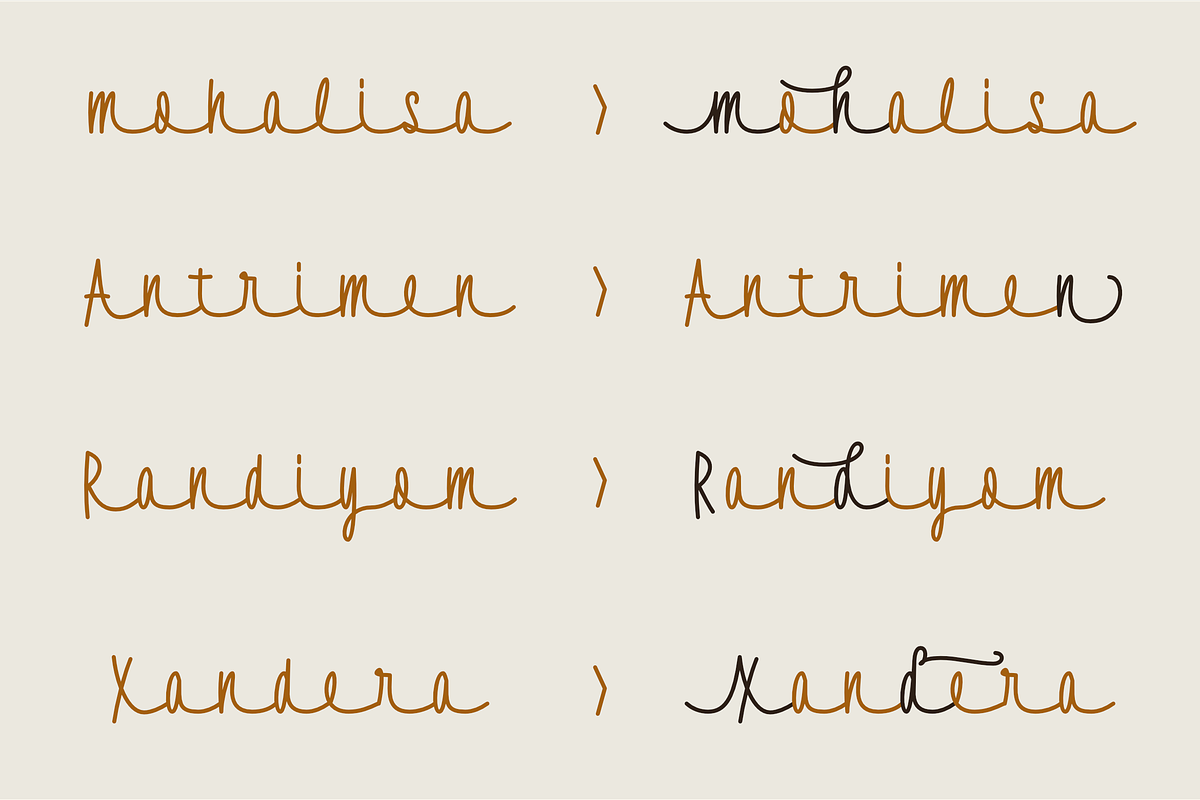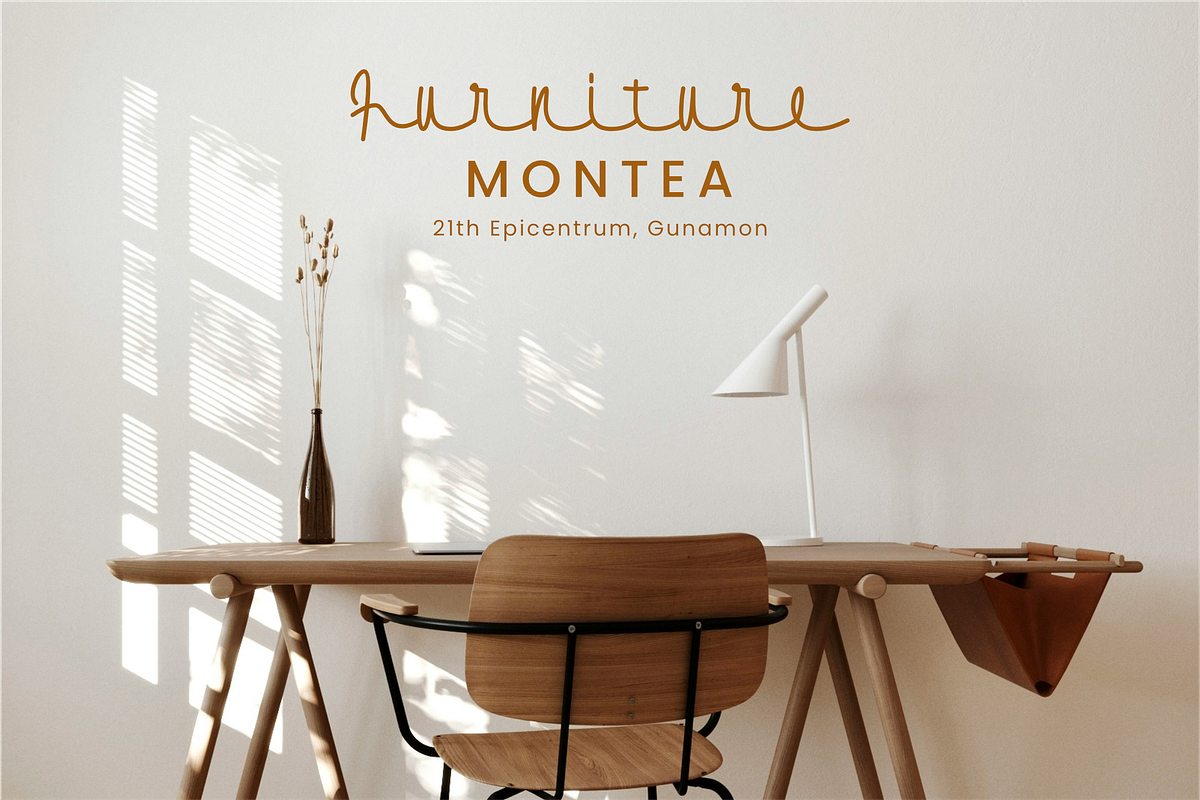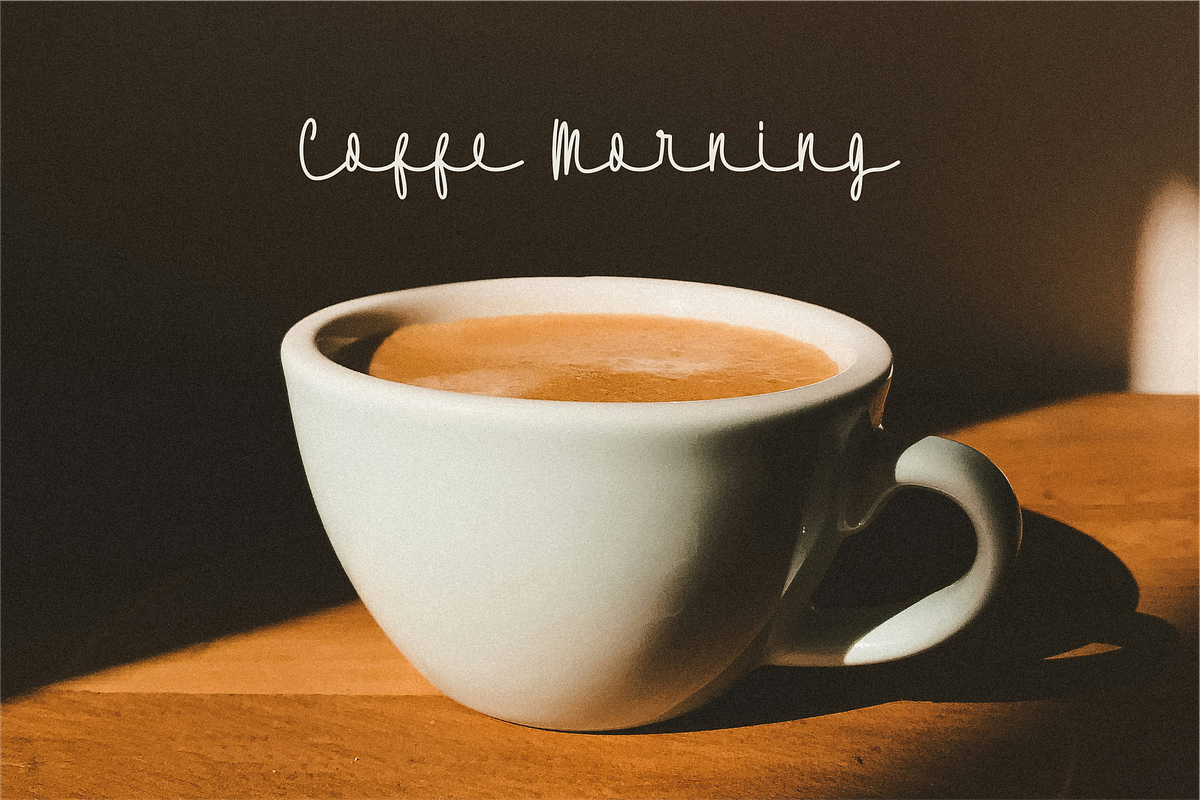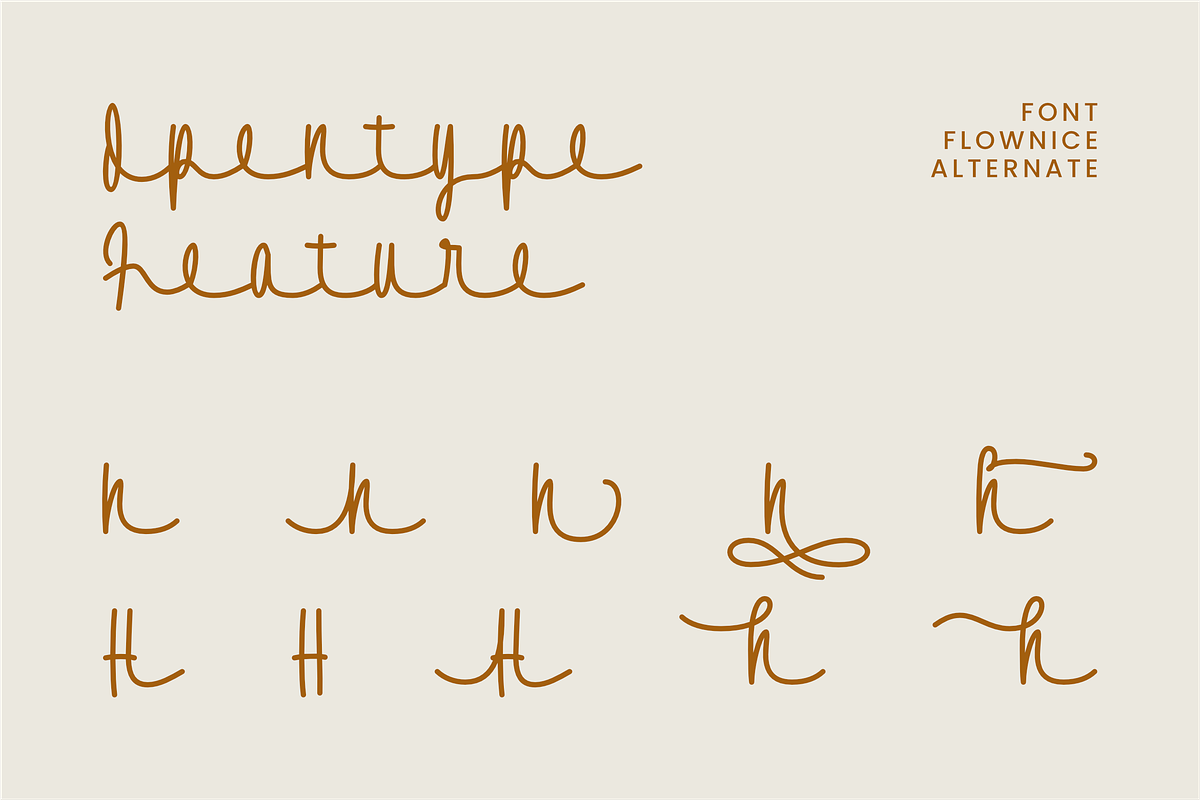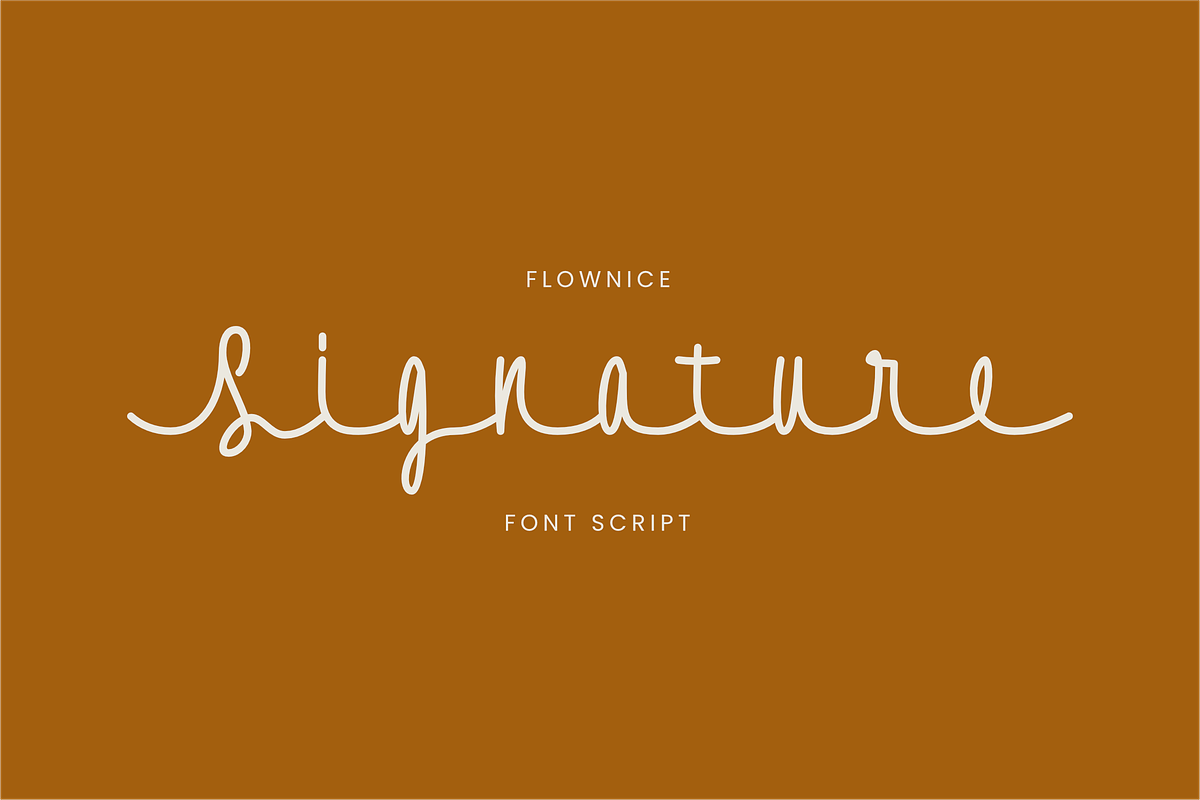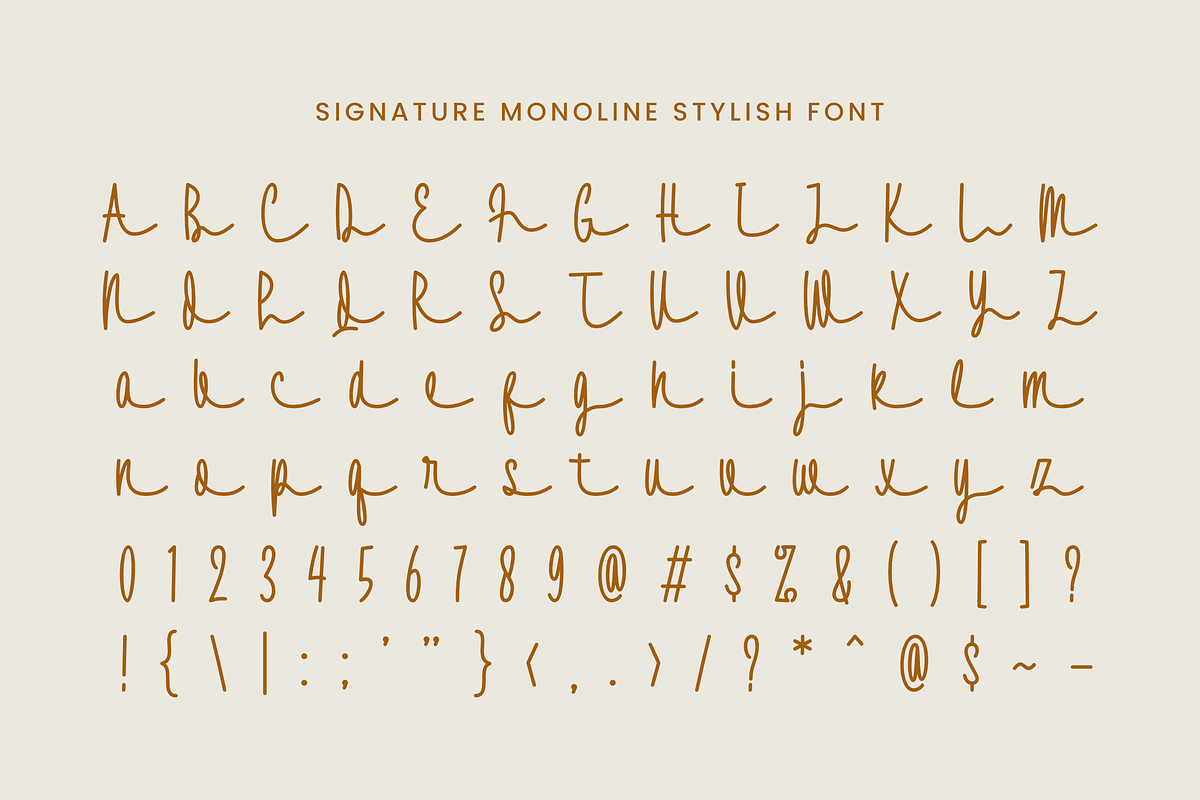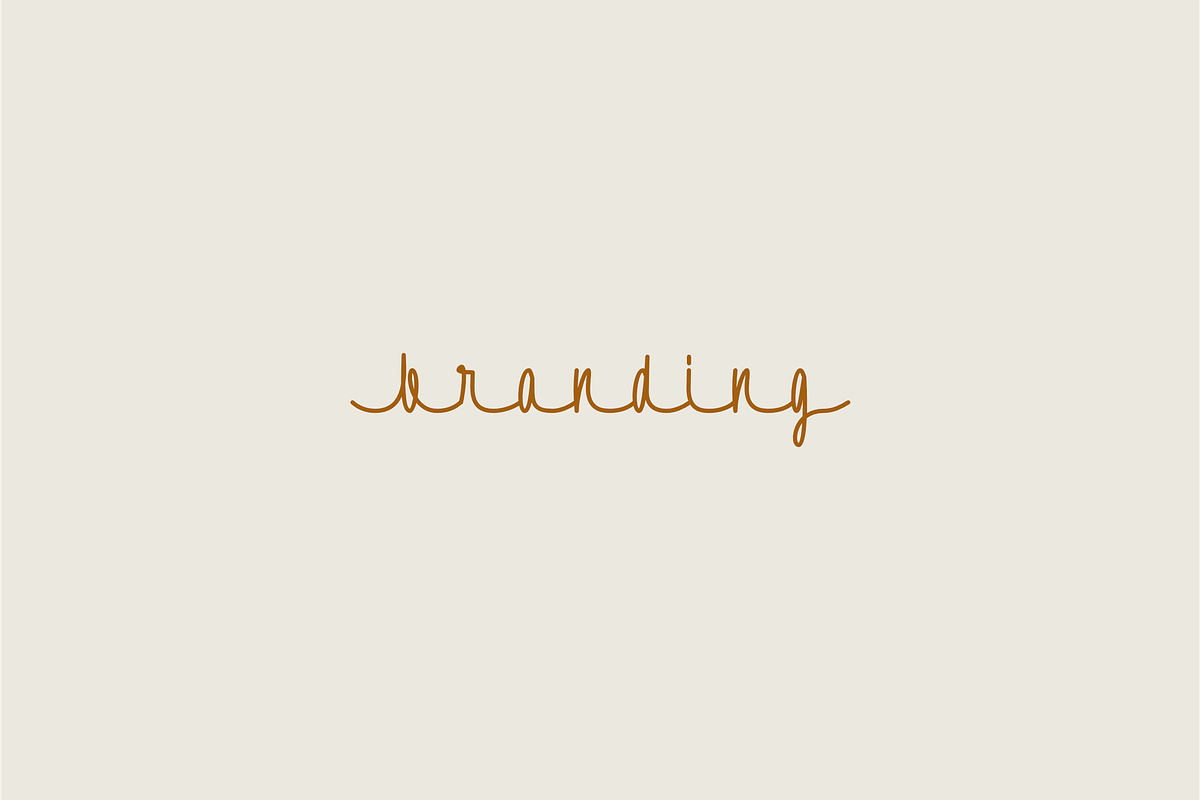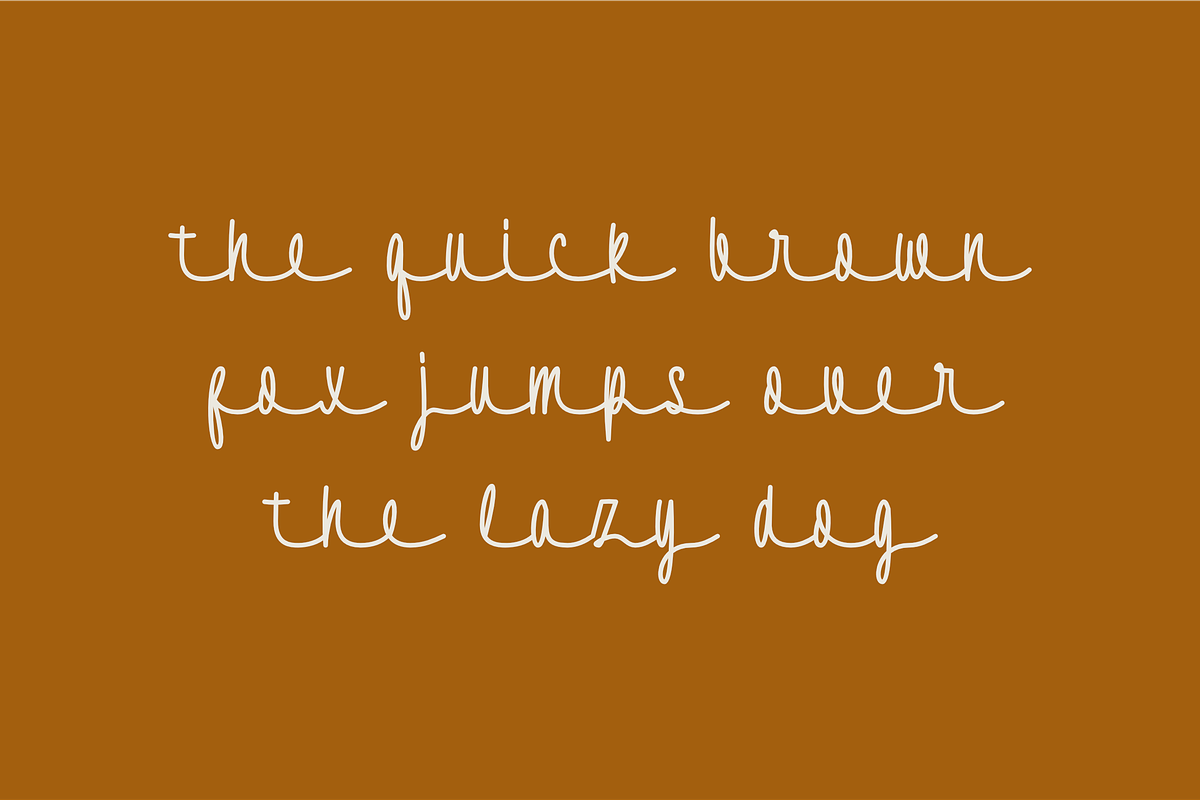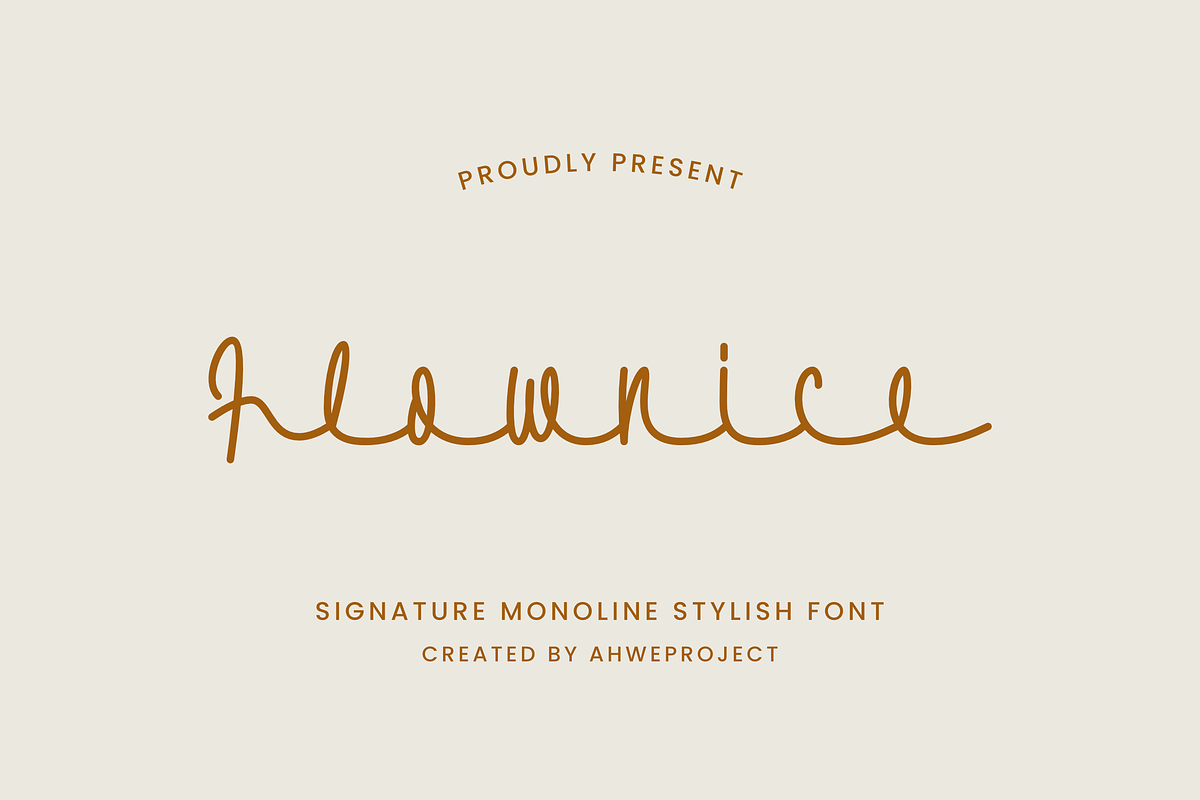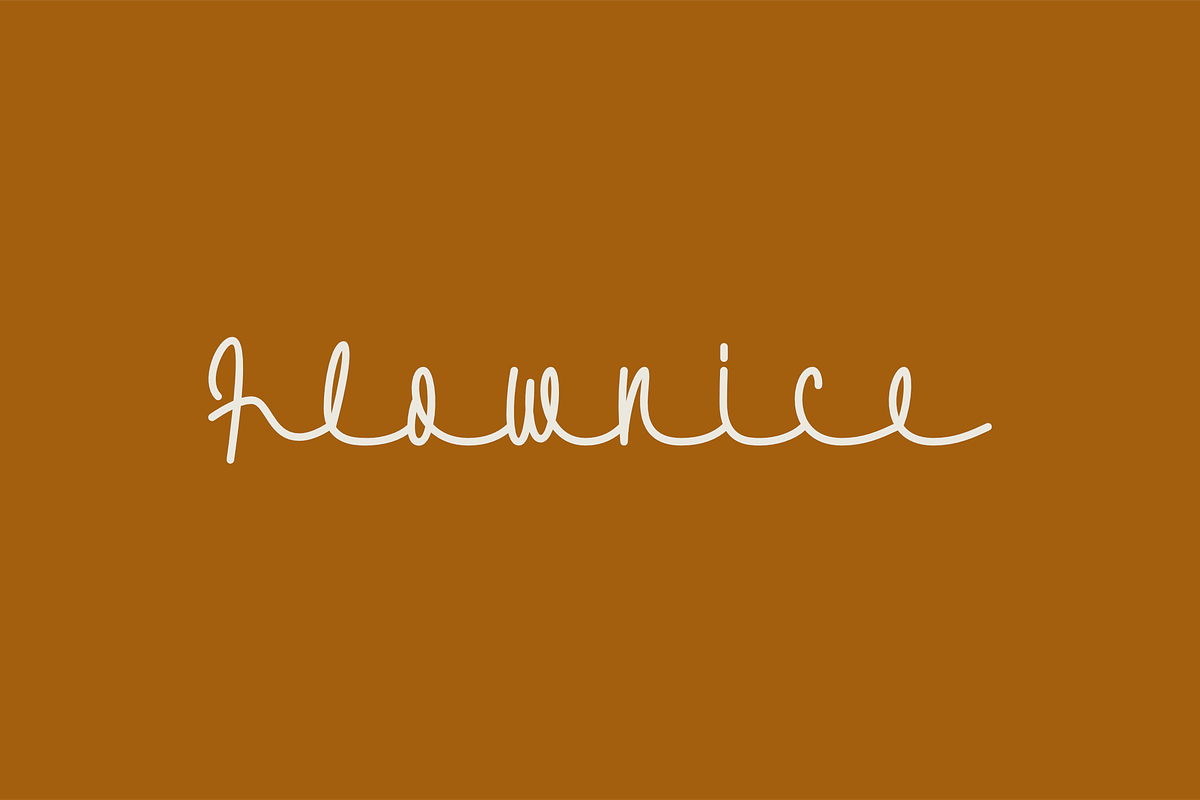
Flownice
Flownice is a sleek and stylish monoline font, designed with a flowing, hand-drawn feel. Its elegant, continuous lines give it a signature-like appearance, perfect for adding a personal touch to branding, logos, and stationery. The font strikes a balance between simplicity and sophistication, offering a modern yet timeless aesthetic. Its rounded, smooth curves enhance its playful yet refined character, making it ideal for various design projects that require a subtle, handwritten charm.